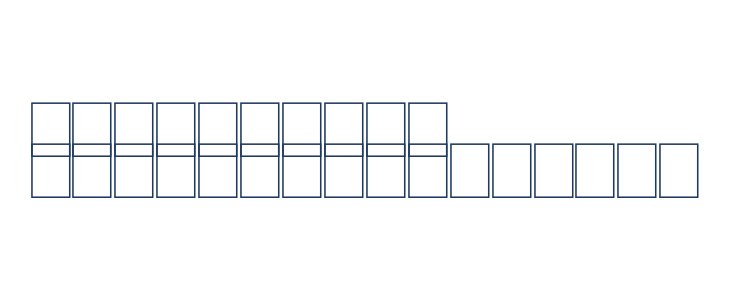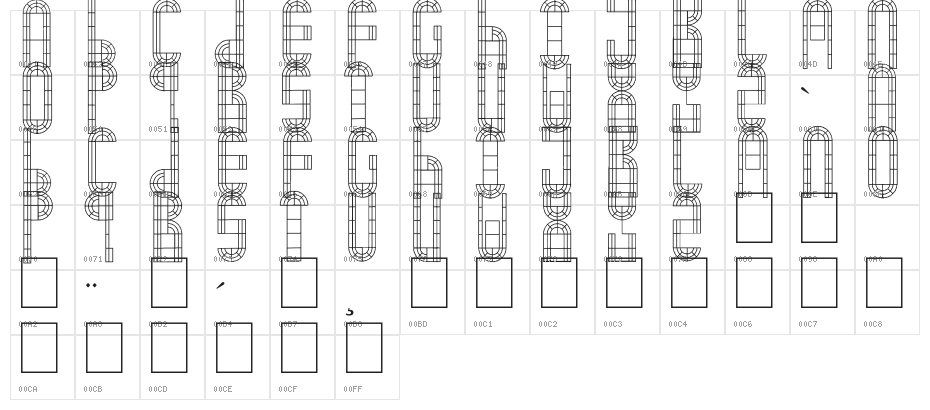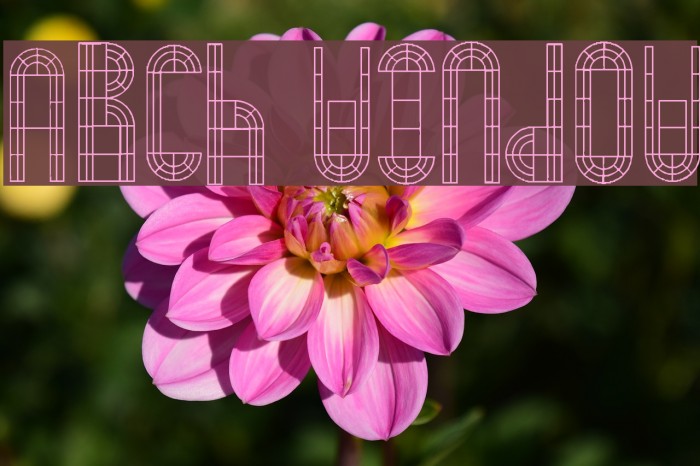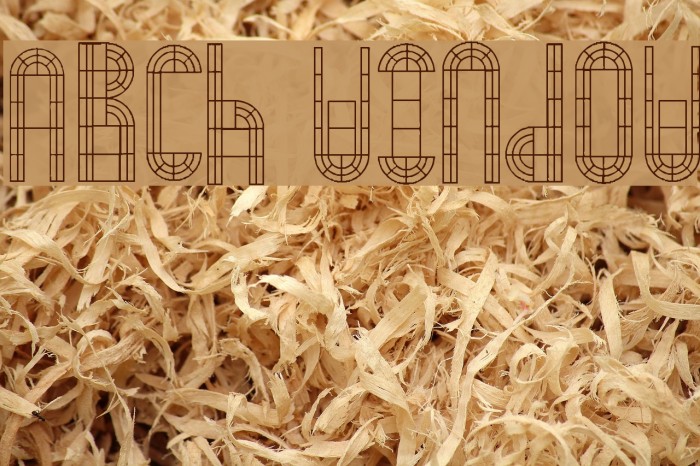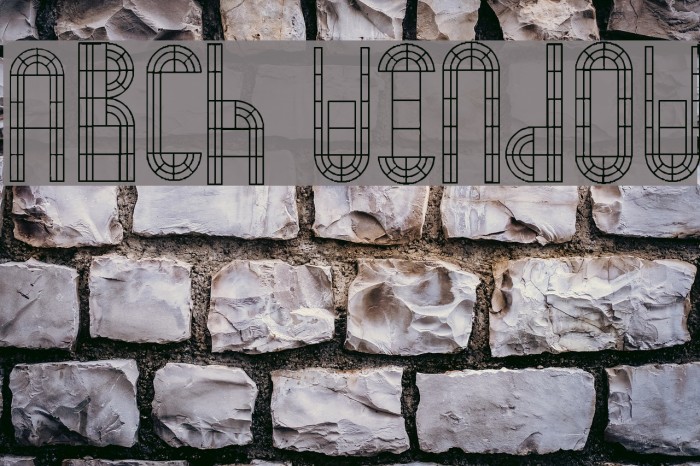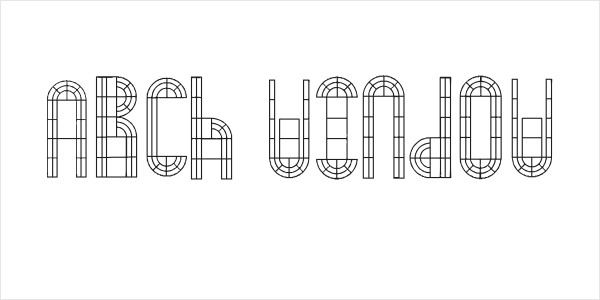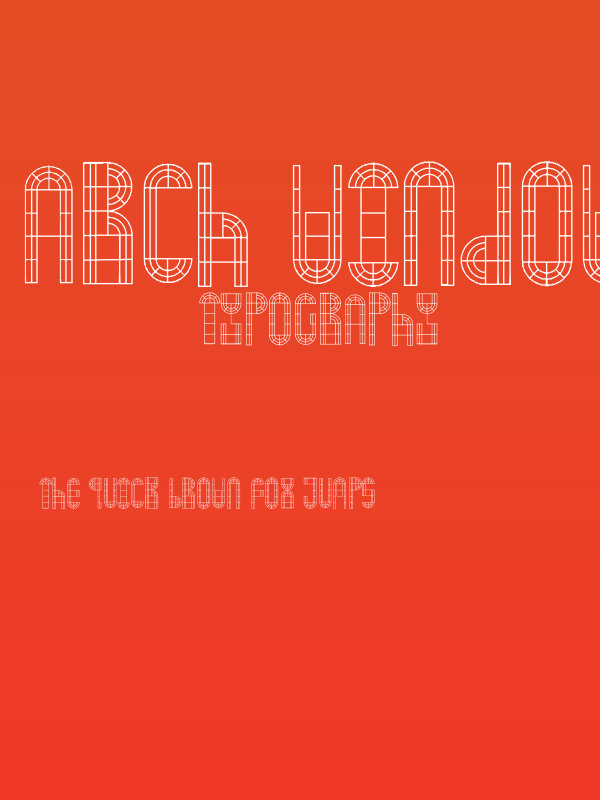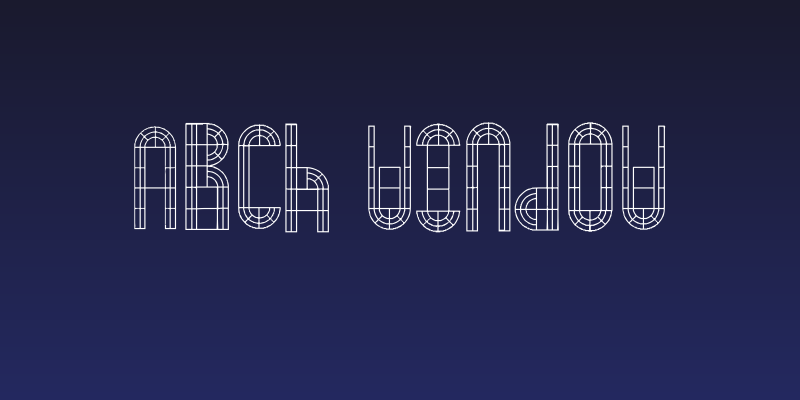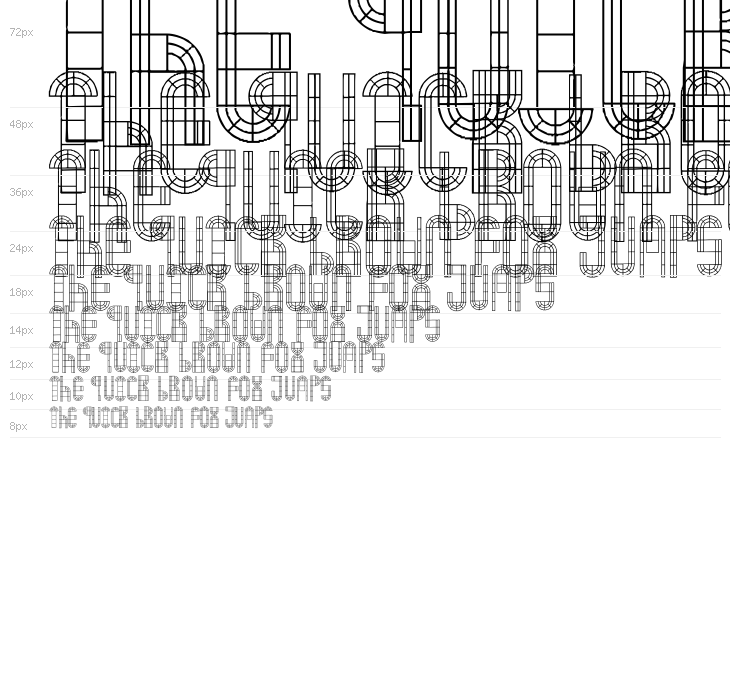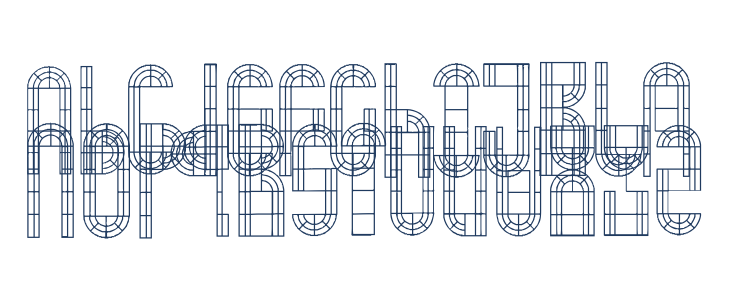
Arch Window Font
Arch Window Description
This font features a unique architectural style, reminiscent of window panes and arches. Each character is constructed with a grid-like pattern, creating a structured and geometric appearance. The uppercase letters are bold and commanding, with a strong vertical emphasis, while the lowercase letters maintain the same architectural theme with a slightly softer approach. The numbers and special characters follow the same design principles, ensuring consistency throughout the typeface. This font's intricate design makes it stand out, offering a blend of modernity and classic architectural elements.
| Use Case | Logos, Headlines, Posters |
| Proposed Projects | Ideal for architectural branding, modern art projects, or any design requiring a structural and unique typeface. |